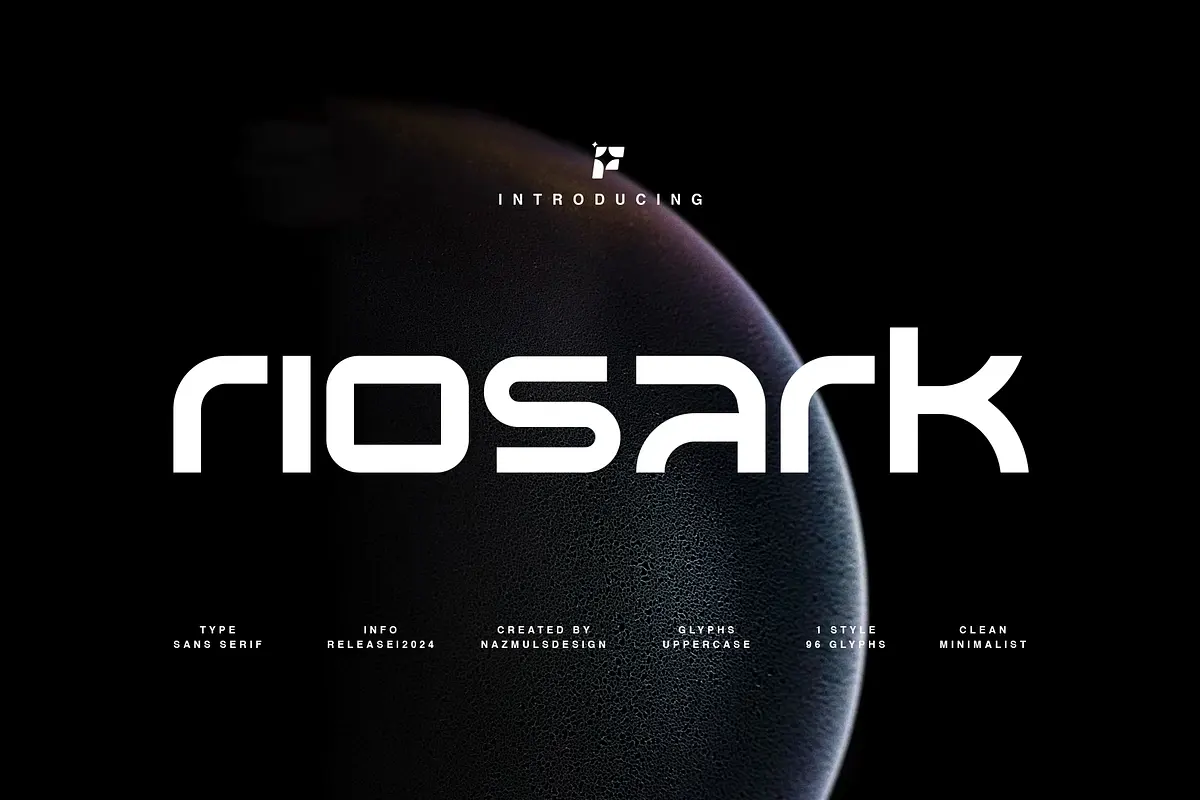
Riosark | Sans Serif Typeface Free Download
With its sleek lines and minimalist style, Riosark is perfect for branding, UI/UX design, editorial layouts, packaging, and professional presentations. It delivers readability and elegance in equal measure, making it a go-to choice for designers seeking simplicity without sacrificing personality.